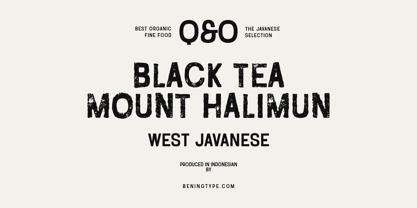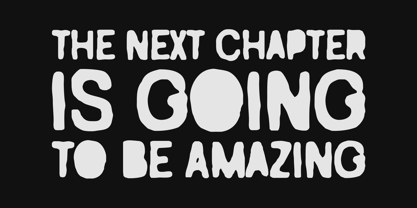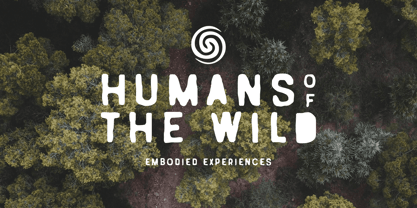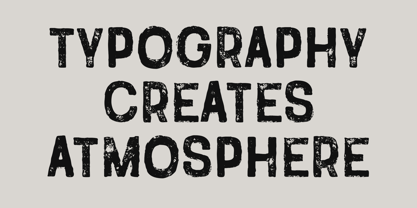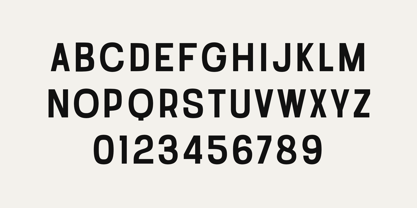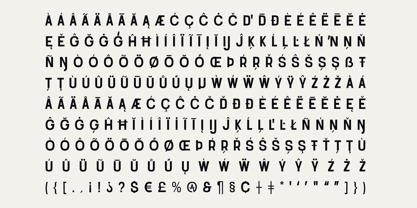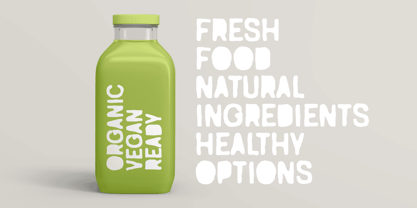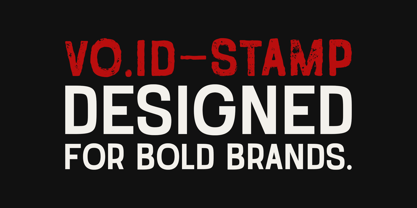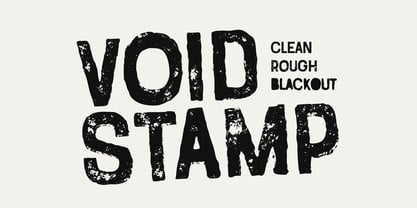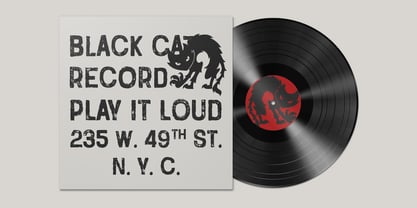
Void Stamp
by Atom
The Void Stamp Font Family was designed by Eko Kurniawan and published by Atom. Void Stamp contains 3 styles and family package options.
Unleash the raw, unapologetic power of typography with Void Stamp, a heavy-duty display font family engineered for high-impact visual design. Inspired by the rugged aesthetic of industrial machinery markings, traditional letterpress printing, and grunge culture, Void Stamp brings an authentic weathered texture directly to your digital canvas.
To give you maximum design flexibility, Void Stamp comes in three distinct styles that can be mixed and matched to suit any project:
1. Clean
The solid, sharp, and high-contrast base version. Perfect for bold layouts that require maximum readability while maintaining a powerful, heavy geometric silhouette.
2. Rough
The signature distressed version. Every single glyph is meticulously crafted with a realistic stamped effect, giving your designs a tactile, weathered, and hands-on feel.
3. Blackout
A heavy, solid, and blocky iteration with rounded/filled counters, delivering a massive, solid punch for extreme counter-culture designs, streetwear sub-brands, and heavy posters.
Whether you are designing atmospheric branding for organic products, crafting a vintage apparel line, or establishing a fierce identity for rock bands and creative agencies, Void Stamp seamlessly bridges the gap between modern minimalism and raw vintage edge.
Key Features:
• 3 Styles: Clean, Rough, and Blackout.
• Bold and commanding uppercase character set.
• Authentic distressed stamp texture (on Rough style).
• Includes numbers, essential punctuation, and symbols.
• Perfect for packaging design, merchandise, posters, streetwear brands, logos, and heavy-duty headlines.
Inject power, character, and an unforgettable stamp of authenticity into your design arsenal with the Void Stamp Family.